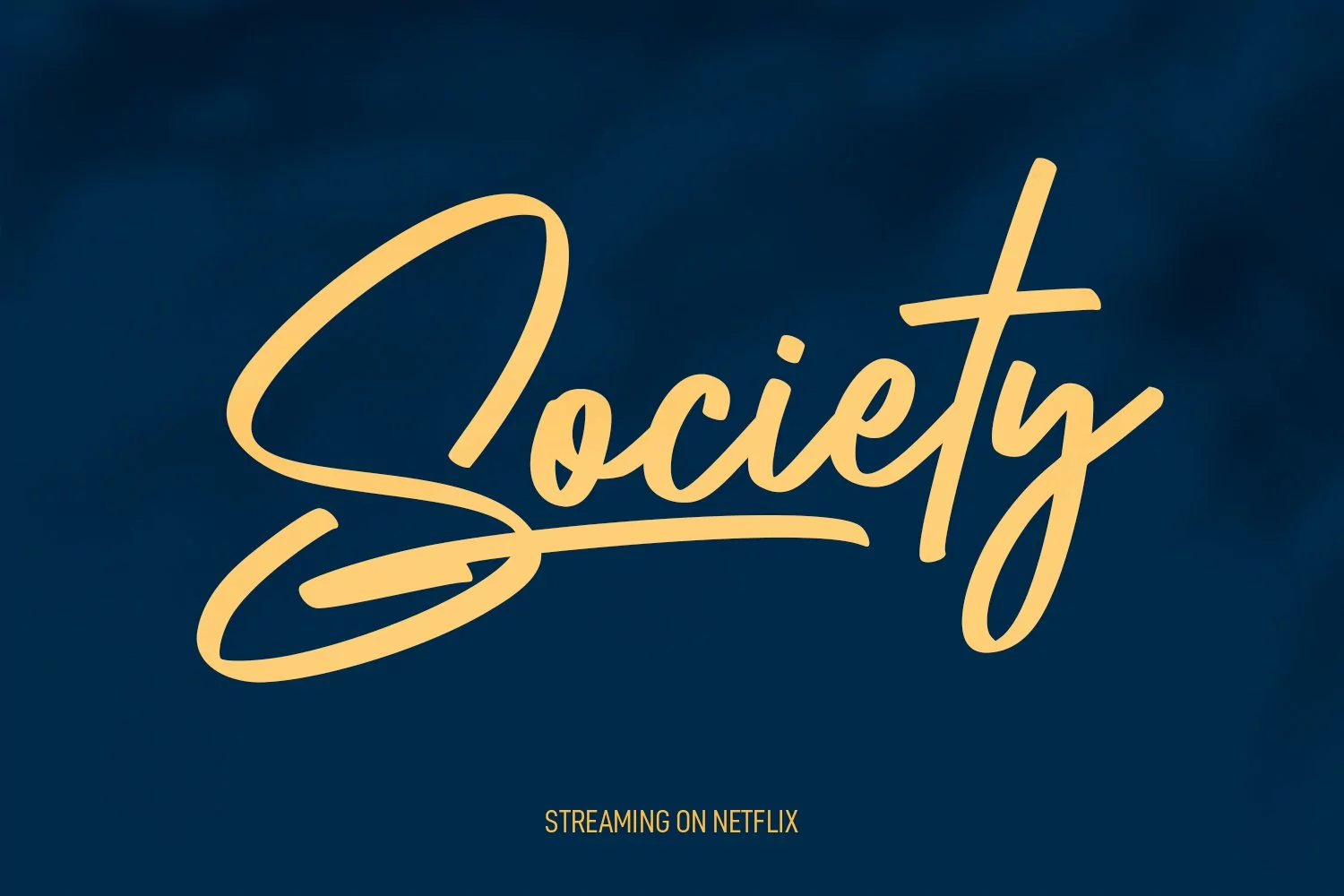
Kurtistown is a script font. With sharp felt-tip stroke, uslanted and fun character with a bit of ligatures and swashes. To give you an extra creative work. Kurtistown font support multilingual more than 100+ language. This font is good for logo design, Social media, Movie Titles, Books Titles, a short text even a long text letter and good for your secondary text font with sans or serif. Make a stunning work with Kurtistown font.